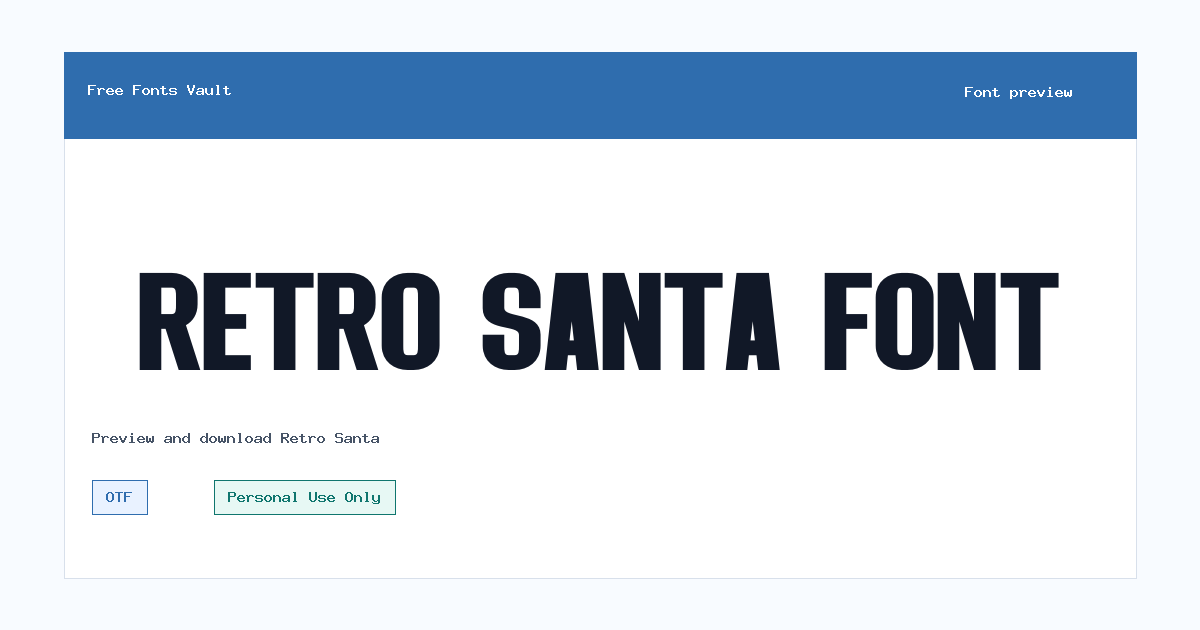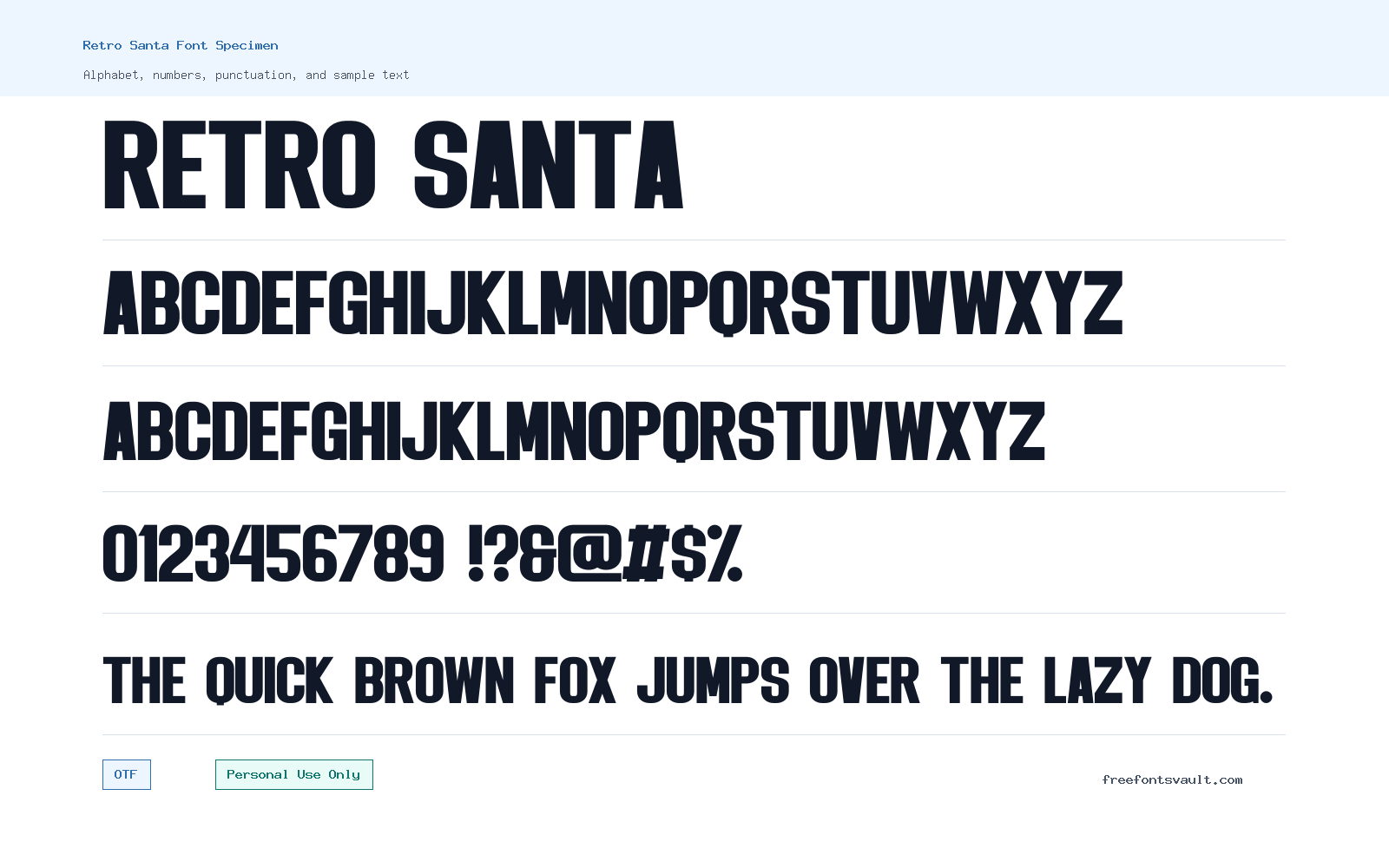
Retro Santa
Retro Santa font specimen showing alphabet, numbers, and sample text
• Designer Muhammad Rizki Utomo
About Retro Santa
Retro Santa is best approached as a seasonal display typeface rather than an everyday reading font. The name points clearly toward Christmas and holiday work, so it makes the most sense in places where the text needs to feel cheerful, themed, and decorative. Use it for short lines such as greeting card headings, event titles, gift tag text, social posts, printable signs, stickers, craft labels, and simple festive layouts. Because the font file is an OTF format, it should work in most common design apps that support OpenType fonts.
Before using Retro Santa in a finished project, try your exact words in the preview tool and look closely at spacing, capitals, punctuation, and numbers. Display fonts can look strong in one-word titles but become harder to read in long sentences, so keep the main message short. For better balance, pair Retro Santa with a plain sans serif or a simple serif for body copy, dates, addresses, or instructions. Let Retro Santa handle the headline, then use the supporting font for anything that needs quick reading. If you plan to print the design, test it at the final size first, especially on small labels, tags, or packaging mockups.
• Suited to short festive display text
• Christmas cards, holiday posters, and seasonal invitations
• Gift tags, stickers, labels, social graphics, and craft projects
Who designed Retro Santa?
Retro Santa is credited to Muhammad Rizki Utomo.
What is Retro Santa best used for?
It is best for short seasonal display text, such as holiday headlines, cards, tags, stickers, posters, and social media graphics.
Should I use Retro Santa for paragraphs?
It is better to use it sparingly for titles or accents. For paragraphs, dates, instructions, or longer descriptions, pair it with a cleaner reading font.